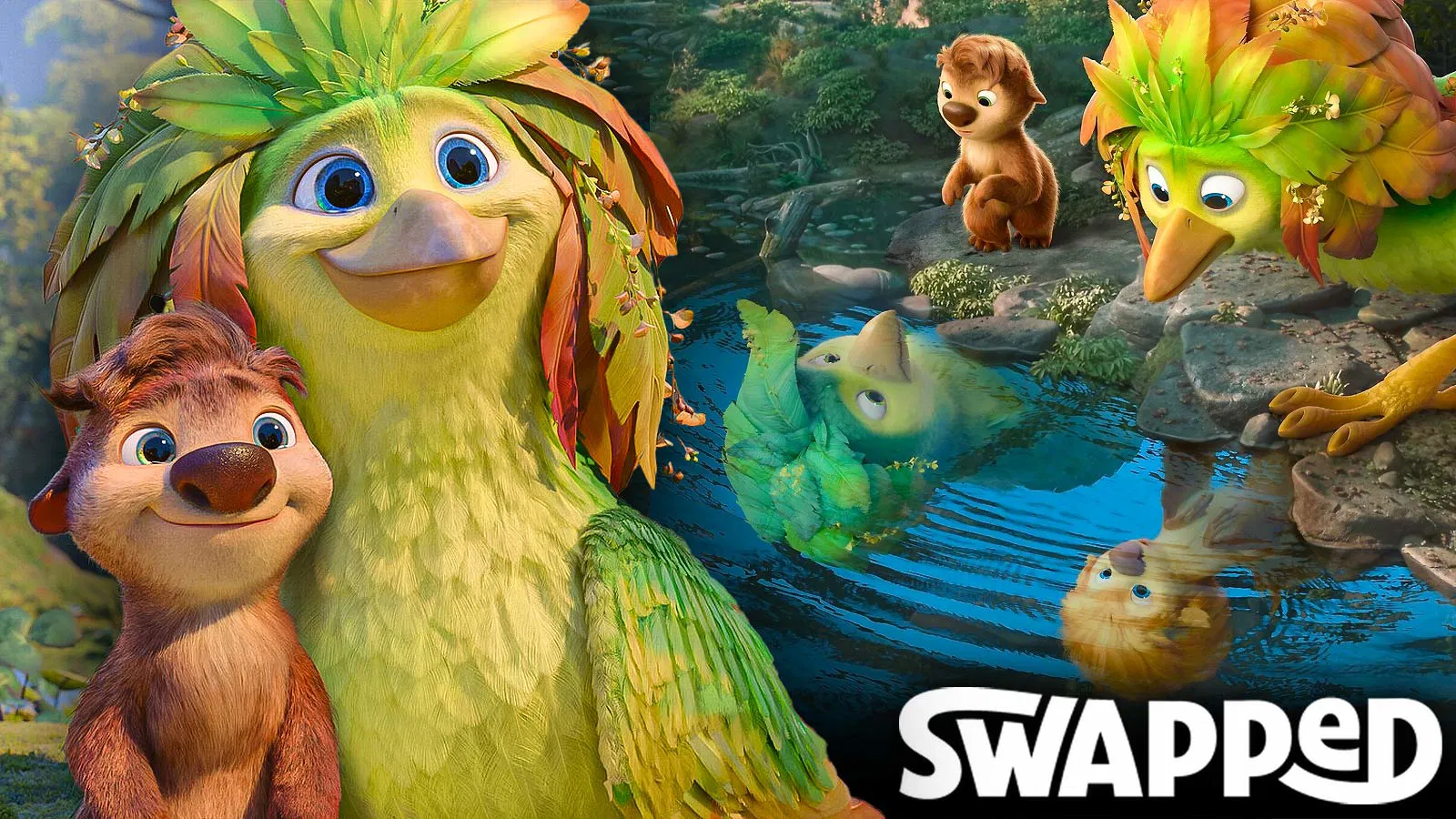
7+ Swapped Movie Font Alternative
Discover the best Swapped movie font alternatives inspired by its bold rounded sans serif logo style. Explore playful display fonts from Sensatype Studio that fit animated posters, kids branding, cartoon logos, packaging, and fun family-friendly design projects.
Swapped is an animated comedy adventure about a small woodland creature and a majestic bird who suddenly trade bodies and must work together to survive a wild journey. The movie features voices including Michael B. Jordan, Juno Temple, and Tracy Morgan, and is listed by Netflix as a kids and family comedy film.
The Swapped movie font has a fun, bold, and rounded appearance that instantly feels connected to animated storytelling. The title logo looks cheerful, soft, and easy to recognize. At first glance, the Swapped logo does not feel formal or corporate. It has a chunky rounded shape, bright color treatment, and a friendly personality that fits the mood of an animated adventure movie. The letters feel big and expressive, but still simple enough to read clearly.
In this article, we will look at the Swapped movie font style, its typography category, and some font alternatives from Sensatype Studio that can help you create a similar playful visual direction.
What Font Is Used in the Swapped Movie?
The exact font used in the Swapped movie logo does not appear to be publicly confirmed. Based on the poster design, the title looks more like a custom movie logotype rather than a standard font used directly from a font library.
However, the visual style is clear. The Swapped logo belongs to the category of a bold rounded sans serif display font. It has thick letterforms, soft edges, and a cartoon-inspired personality. The letters do not have serif details, which means this style is not a serif font. Instead, it fits better as a rounded sans serif display typeface.
This kind of typography is common in animated movies, children’s entertainment, cartoon branding, adventure games, toy packaging, and playful visual identities. It is bold enough to work as a title, but soft enough to feel friendly and approachable.
Swapped Movie Font Alternative
If you want to create a design inspired by the Swapped movie logo, Sensatype Studio offers several playful display fonts that can fit the same visual direction.
Wavely - Modern Sans Serif Ligatures Font
Wavely brings a fresh and sophisticated look to contemporary design projects. Perfect for modern branding, logo design, packaging, editorial layouts, posters, social media, and UI/UX projects, Wavely creates a professional visual identity with a unique personality. Its versatile sans serif style makes it suitable for both minimalist and expressive designs.
Homeya - Modern Rounded Display Logo Font
Homeya is a modern rounded display font with soft shapes, clean proportions, and a friendly logo-ready personality. Its smooth rounded structure makes it a strong choice for Swapped-inspired designs that need to feel playful, modern, and easy to read. It works well for logos, posters, packaging, website headers, and cheerful social media graphics.
Gaby - Bold Rounded Funny Logo Font
Gaby is one of the strongest alternatives for the Swapped movie font style. It has thick rounded letters, friendly curves, and a funny display rhythm that feels cheerful and memorable. This font is perfect for cartoon logos, kids branding, animated posters, stickers, playful packaging, and fun promotional headlines.
Bingko - Cute Funny Kids Font
Bingko is a cute funny kids font with bubbly curves, soft edges, and joyful letterforms. Its playful personality makes it suitable for children’s designs, cartoon visuals, storybooks, toy packaging, and educational graphics. For a Swapped-inspired design, Bingko works well when you want a softer, cuter, and more adorable look.
Kaboom - Unique Funny Kids Font
Kaboom is a unique funny kids font full of energy, imagination, and playful movement. With bold letterforms, rounded shapes, and quirky details, it fits cartoon titles, game logos, children’s posters, classroom materials, and creative packaging. It is a great option for adding a more expressive and energetic tone to Swapped-inspired visuals.
Chubaq - Rounded Food Font
Chubaq is a rounded food font with plump shapes, smooth curves, and a warm friendly mood. Although it is designed for food branding, its bold and soft personality can also work well for playful animated designs. It is suitable for kids campaigns, cheerful posters, snack packaging, and fun promotional layouts.
Aglema - Display Fun Font
A Swapped-inspired font style is perfect for designs that need to feel fun, adventurous, and easy to love. Whether you are working on a poster, game title, children’s brand, packaging design, or social media campaign, rounded display typography can help bring your visual idea to life.
For a more distinctive and original result, you can explore font collections from Sensatype Studio, especially fonts made for kids branding, cartoon logos, playful display typography, and bold animated-style titles.